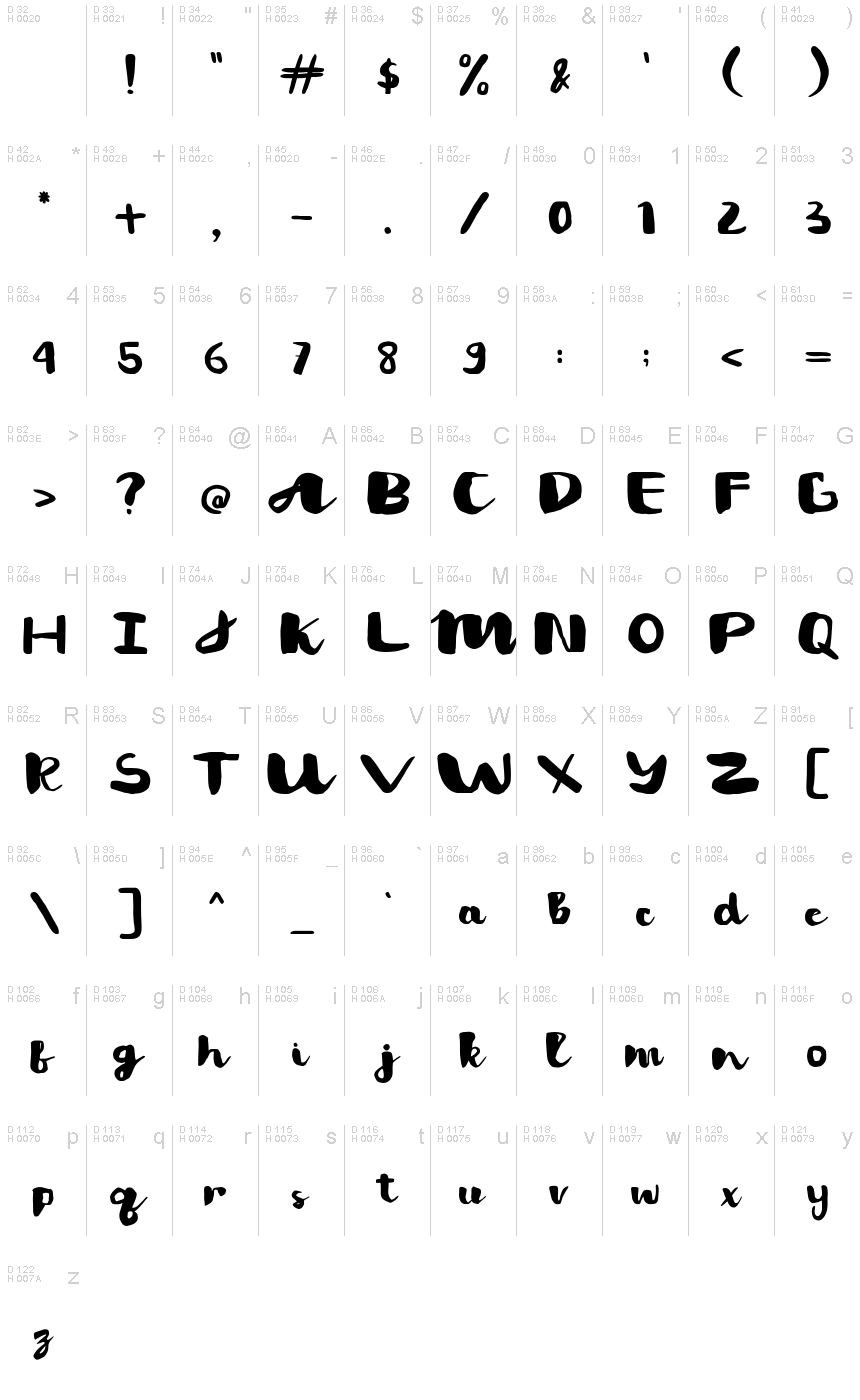
Caustin Bolar Demo Regular
Caustin Bolar font by madeDeduk is an expressive handcrafted typeface with artistic flair. It has a retro-inspired brush style with a bold weight and expanded width that gives it a casual elegance. Explore this font as you channel your creative energy and put it to work to get the results you desire.
This natural-looking free brush font can be added to websites, magazines, and blogs or used for stationery items such as invitation cards, envelopes, and business cards. You can also enjoy using it on branding projects like logos or apparel design plus wedding planning-related projects too.